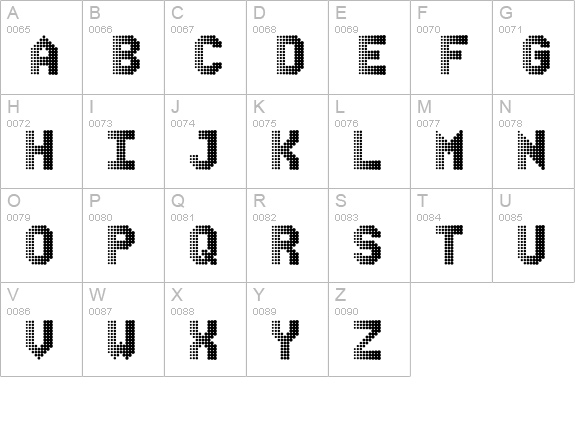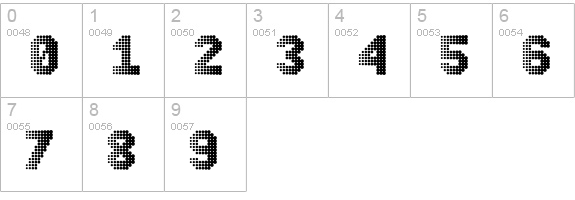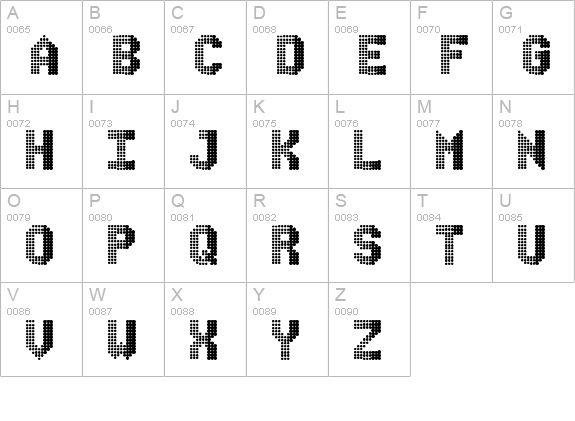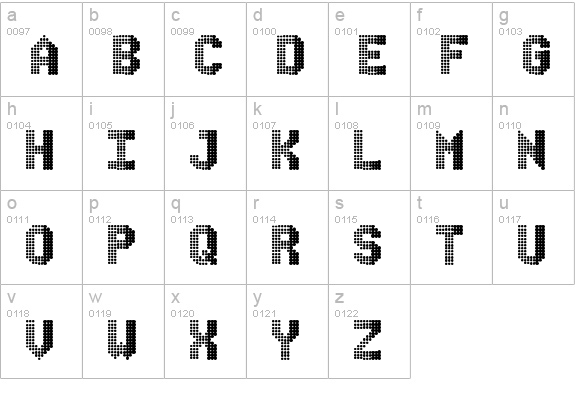
ChaserRight Font Details
Introducing ChaserRight font, a modern and stylish typeface designed to make your designs stand out. With its sleek lines and contemporary look, ChaserRight is perfect for a wide range of creative projects. Whether you're designing a logo, poster, or website, this font will add a touch of sophistication to your work. What's even better is that ChaserRight is available for free download at FontsMarket.com. Yes, you read that right – this high-quality font can be yours without spending a penny. Don't miss out on this amazing opportunity to enhance your designs with ChaserRight font. Download it now and let your creativity shine!